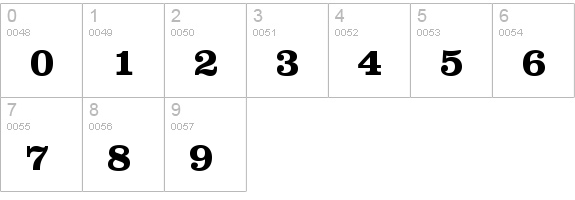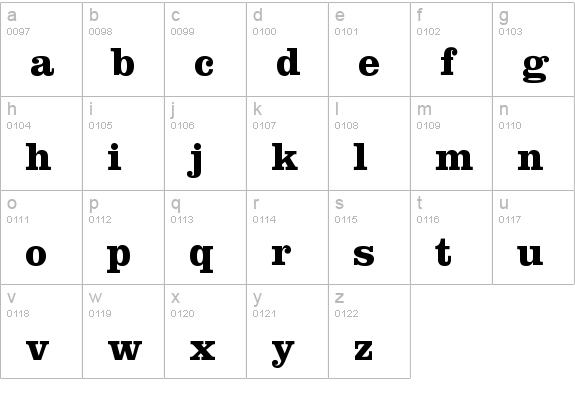
Clarendon Bold is a strong, high-contrast variant in the Clarendon typeface family \xE2\x80\x94 well suited to headlines, attention-grabbing titles, and strong calls-to-action.
Clarendon Bold font is a timeless and versatile typeface that exudes strength and sophistication. Its bold and commanding presence makes it perfect for headlines, titles, and branding projects. The sturdy serifs and clean lines give Clarendon Bold a classic yet contemporary feel, making it a popular choice for designers looking to make a statement. And the best part? Clarendon Bold font is available for free download at FontsMarket.com! Whether you're working on a print design, web project, or any other creative endeavor, Clarendon Bold is sure to elevate your work with its bold and impactful presence. Don't miss out on the opportunity to add this powerful font to your collection today - download Clarendon Bold for free at FontsMarket.com and take your designs to the next level.